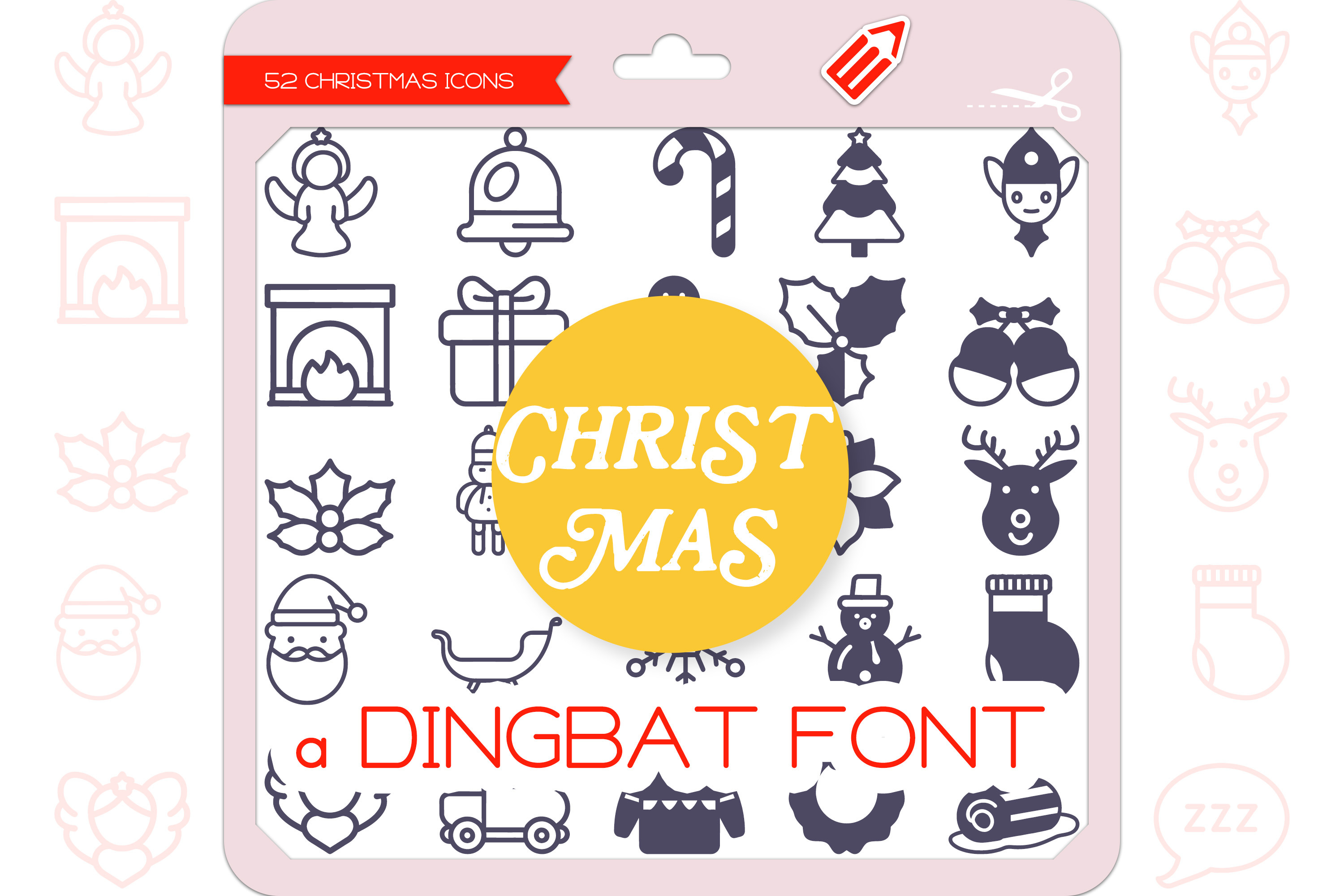
Christmas Icons - Dingbat Font
Christmas is a unique and cute dingbat font. It contains 52 icons in 2 styles (Outline & Filled-Outline). Add this font to your creative ideas and make your arts outstanding!
The Christmas Icons Dingbat Font featuring 26 things Angel, Bell, Candy Cane, Christmas Tree, Elf, Fireplace, Gift Box, Gingerbread Man, Holly, Jingle Bells, Mistletoe, Nutcracker, Ornaments, Poinsettia, Reindeer, Santa Claus, Sleigh, Snowflake, Snowman, Stocking, Sugar Plum Fairy, Toy Train, Ugly Sweater, Wreath, Yule Log, Zzz